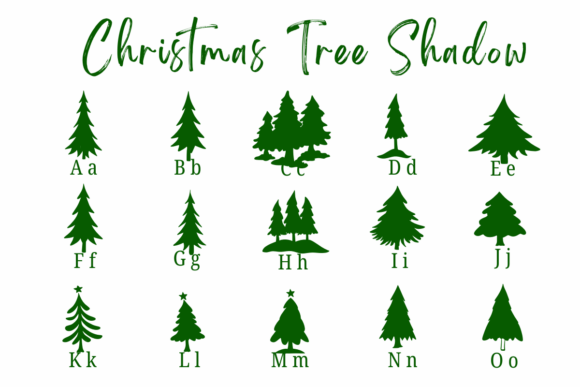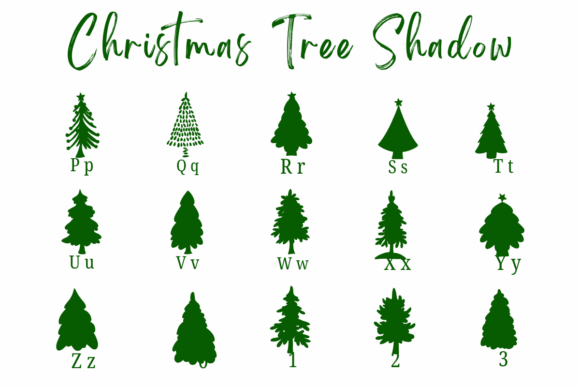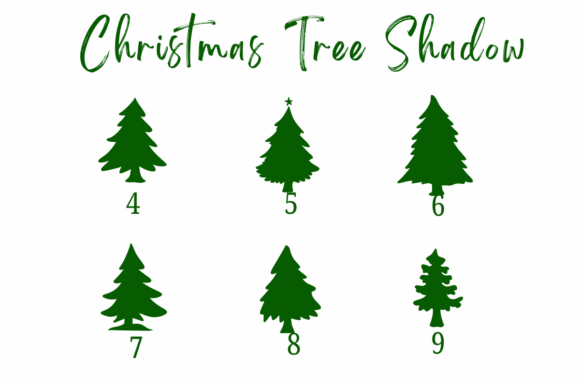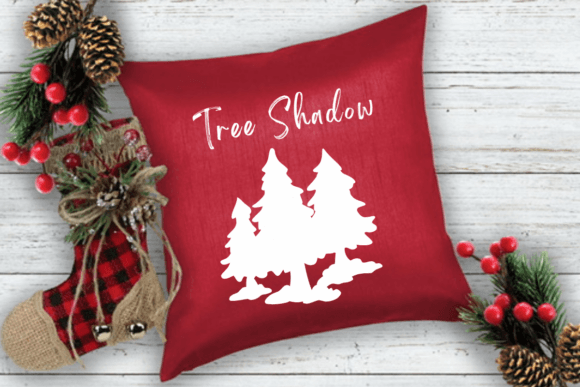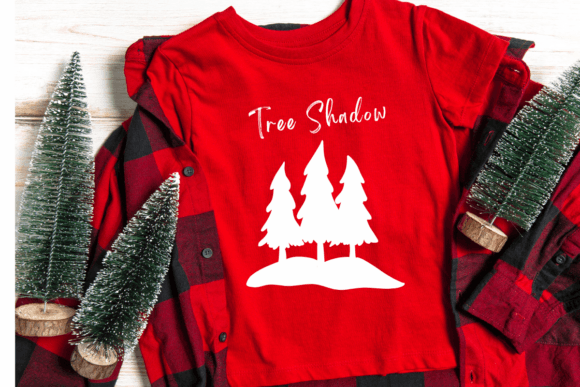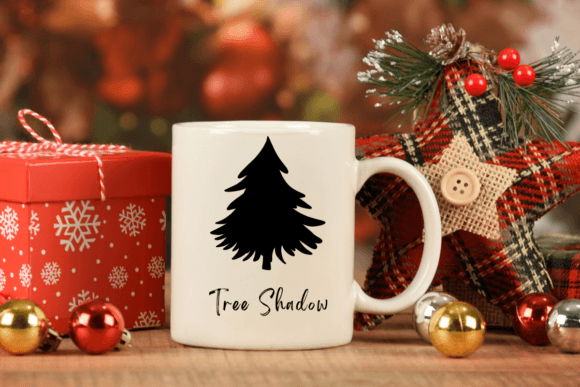
Introduction to Christmas Tree Shadow Font
As you sit amidst twinkling lights, garlands of evergreen, and the scent of pine wafting through the air, the magic of the holiday season begins to unfold. You’re brainstorming ideas for your annual Christmas card or a special wedding invitation, and the perfect design starts to take shape. Suddenly, you stumble upon a font that perfectly captures the whimsy and charm of the season – the Christmas Tree Shadow Font.
This enchanting dingbats font, with its natural style, is a game-changer for designers looking to elevate their creative projects. With its transparent background, it seamlessly integrates into any design, making it an invaluable resource for crafty enthusiasts and design professionals alike. Whether you’re creating a DIY decoration, a logo, or a high-quality print, the Christmas Tree Shadow Font is sure to bring a touch of festive flair to your work.
Key Features of Christmas Tree Shadow Font
- High-quality design resource ideal for creative projects, especially during the holiday season.
- Features a transparent background, allowing for easy integration with various design elements.
- Perfect for adding a festive touch to digital designs, such as Christmas cards, invitations, and social media graphics.
- Comes in a high-resolution design, suitable for print and digital applications.
- Unique shadow effect adds depth and visual interest to designs, making it a standout design resource.
Honest Review: Christmas Tree Shadow Font
I recently stumbled upon the Christmas Tree Shadow Font, and I must say it’s been a delightful addition to my design arsenal. This font is perfect for any creative project that requires a touch of winter magic.
Here are some aspects that work well: ✨ The font is easy to read and has a nice balance of light and dark elements, making it perfect for use on a transparent background. The design is also highly customizable, allowing you to adjust the size and spacing to suit your needs. The font is available for free download, which is a definite bonus.
Now, let’s talk about the limitations: ⚠️ One potential issue is that the font may not be suitable for use in large quantities, as the shadows can become a bit pixelated at larger sizes. Additionally, the font may not be the best choice for body text, as it’s more suited for headings and titles.
Overall, I’m impressed with the Christmas Tree Shadow Font. It’s a high-quality design resource that’s perfect for adding a touch of festive flair to your creative projects. I’d definitely recommend it to anyone looking for a unique and eye-catching font.
Here are some key features:
- Highly customizable design
- Perfect for use on transparent backgrounds
- Unique and eye-catching design
- May not be suitable for large quantities or body text
How to Use Christmas Tree Shadow Font
The Christmas Tree Shadow Font is a unique design resource perfect for adding a touch of festive charm to your creative project. This high-quality font features a transparent background, making it easy to customize and combine with other design elements.
To get the most out of the Christmas Tree Shadow Font, experiment with different font sizes, colors, and transparencies. You can also combine the font with other design elements, such as images and graphics, to create a unique and eye-catching design.
The Christmas Tree Shadow Font is perfect for holiday-themed designs, such as Christmas cards, gift tags, and party invitations. You can also use it to add a festive touch to your website, social media, or marketing materials.